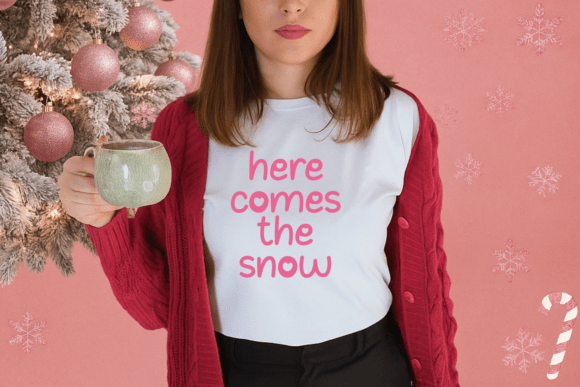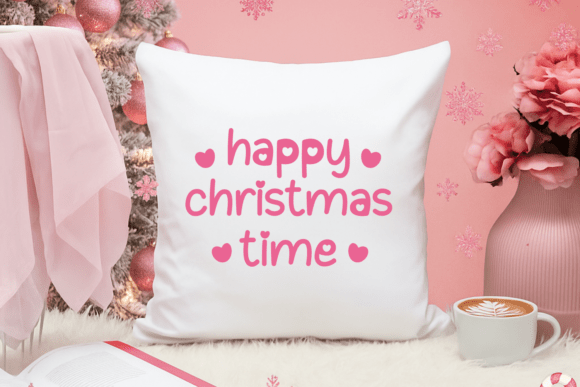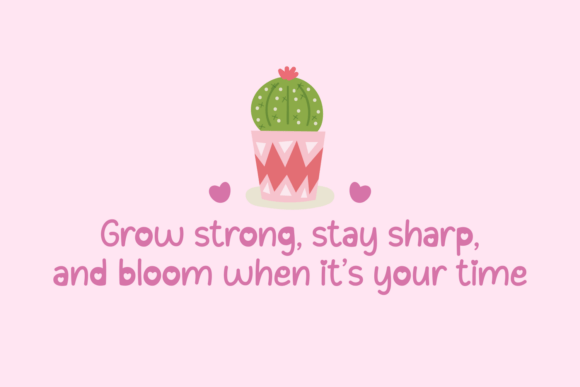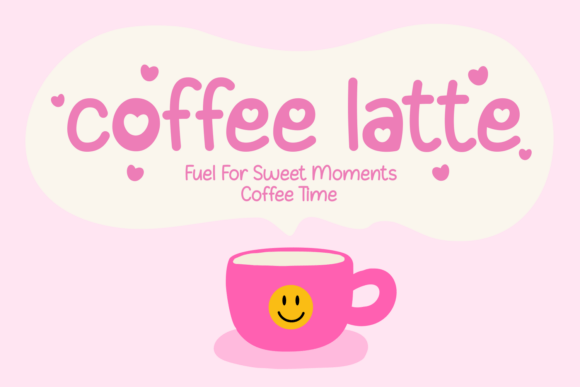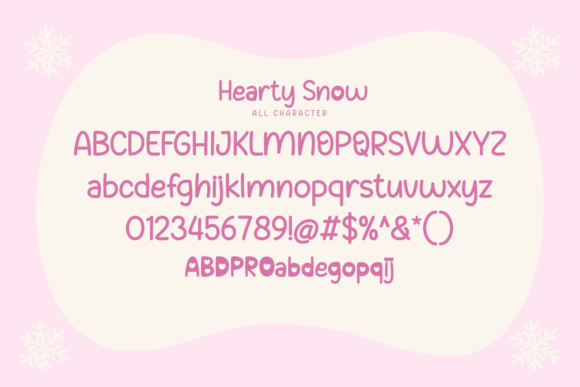
Introducing Hearty Snow: A Whimsical Handwritten Display Font for Winter Wonderland Designs
As the winter season approaches, designers and crafters are on the lookout for fonts that can capture the essence of snowflakes, coziness, and romance. Hearty Snow, a charming handwritten display font, is here to add a touch of magic to your designs. This delightful font perfectly intertwines whimsy and winter wonder, making it an ideal choice for a variety of creative projects.
The Unique Characteristics of Hearty Snow
Hearty Snow boasts a soft, approachable roundness, delivered through bold, secure lines that add an irresistible playful flair to any design. The font’s letters are carefully crafted to evoke a sense of warmth and friendliness, making it perfect for designs that require a personal touch. One of the standout features of Hearty Snow is the tender heart accents nestled within specific characters. This heartfelt detail infuses an element of romance and sweetness, lifting any word to captivating heights.
A Winter Wonderland of Colors and Features
The Hearty Snow font features an expressive palette of pastel pink, coupled with delightful snow features that amplify the cozy and lovable winter romance narrative. The snowflakes and winter elements are intricately designed to add a touch of whimsy and playfulness to your designs. Whether you’re creating holiday cards, winter-themed invitations, or festive packaging, Hearty Snow has got you covered.
Hearty Snow is an ideal choice for designers and crafters looking to add a touch of winter wonder to their creations. Whether you’re working on a commercial project or a personal craft, this font is sure to delight. Its versatility and charm make it suitable for a wide range of applications, from:
• Holiday cards and invitations
• Winter-themed packaging and branding
• Festive signage and posters
• Personal crafts and DIY projects
Why Choose Hearty Snow?
So, why choose Hearty Snow over other winter-themed fonts? Here are just a few reasons:
• Unique and whimsical design that captures the essence of winter wonder
• Tender heart accents add a touch of romance and sweetness
• Expressive palette of pastel pink and delightful snow features
• Perfect for a wide range of design and craft applications
Get Ready to Fall in Love with Hearty Snow
If you’re looking for a font that can add a touch of magic to your winter designs, look no further than Hearty Snow. Its charming and whimsical design, combined with its versatility and customization options, make it an ideal choice for designers and crafters alike. So, get ready to fall in love with Hearty Snow and bring a touch of winter wonder to your creations.